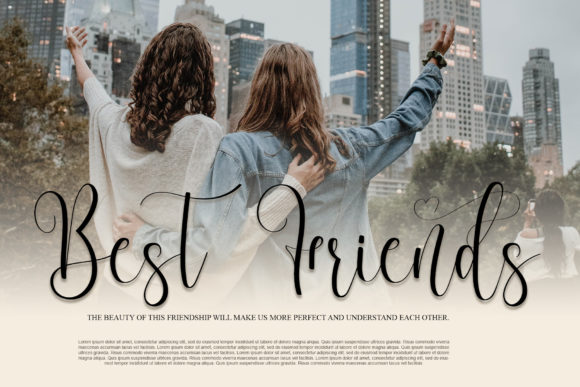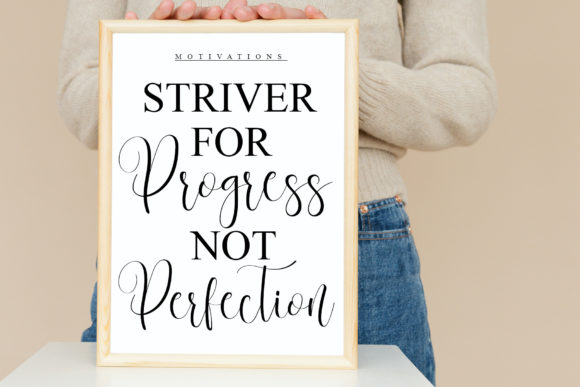
Shopie Script Font
db-ku.com - Script & Handwritten -- Shopie Script is a dazzling and detailed script font. Add this romantic and lovely looking font to each of your love letters, wedding invitations or favorite design ideas, and you will be astounded by the outcome.